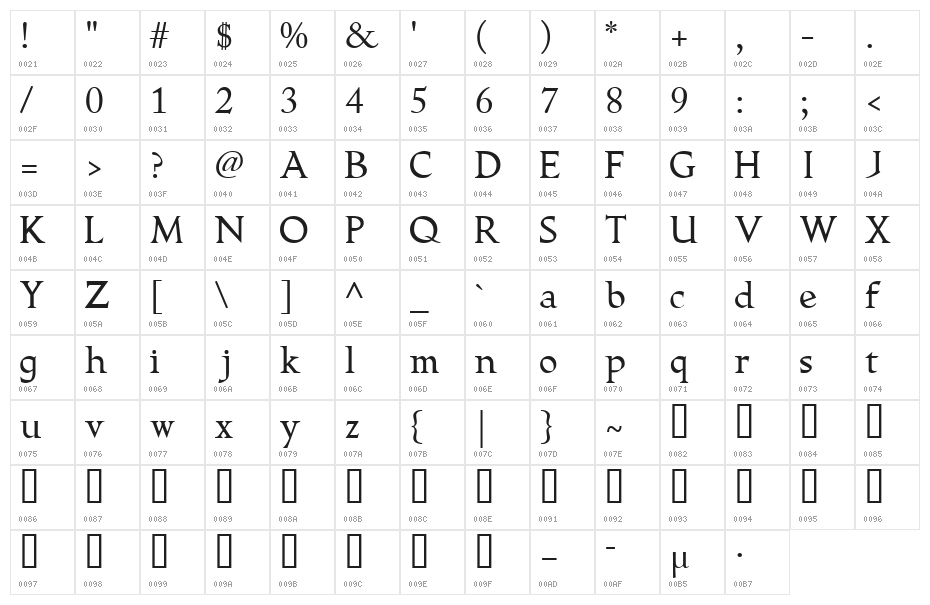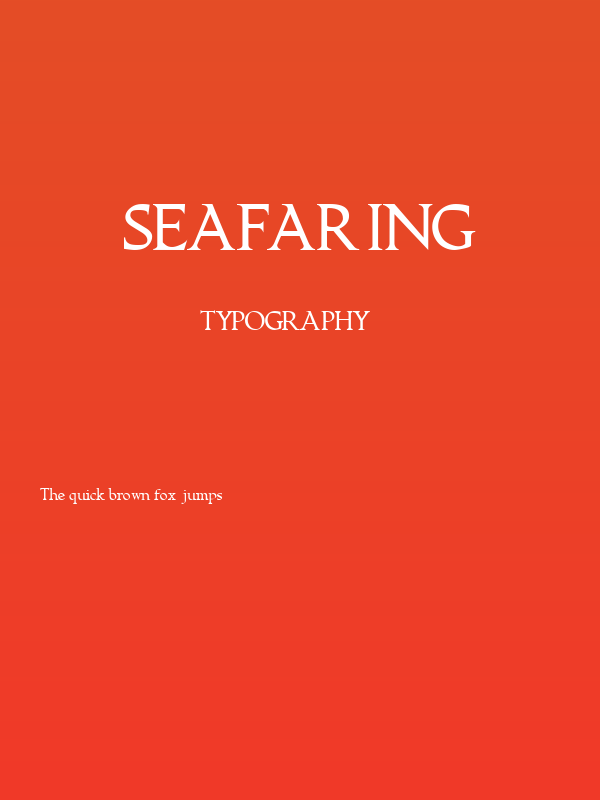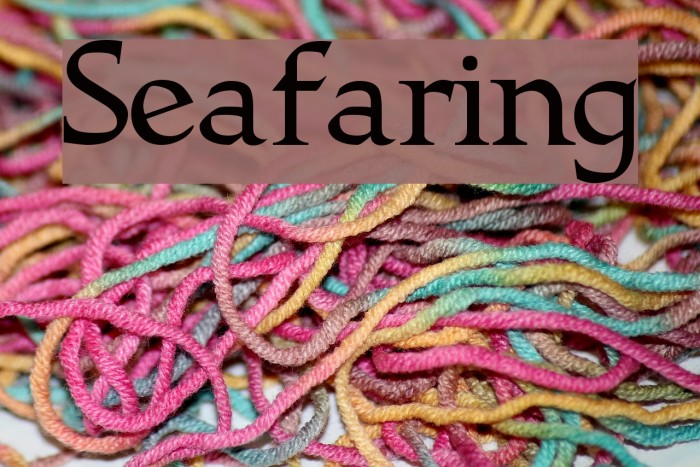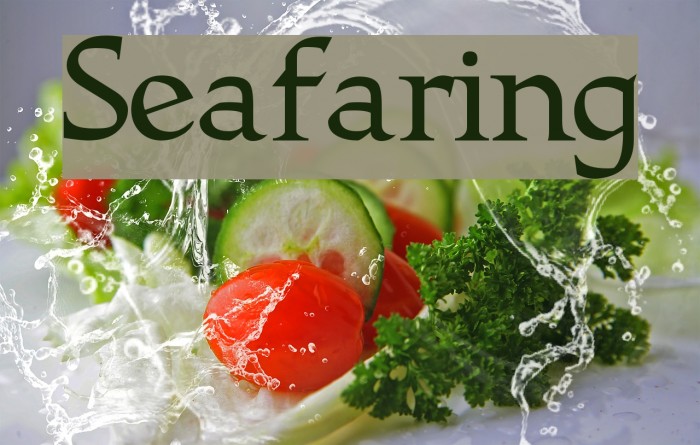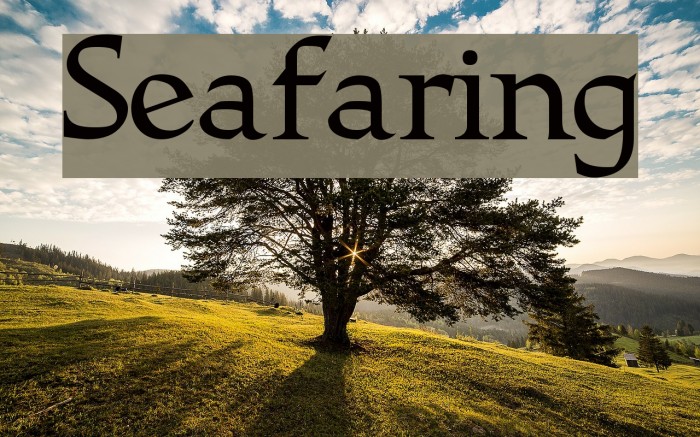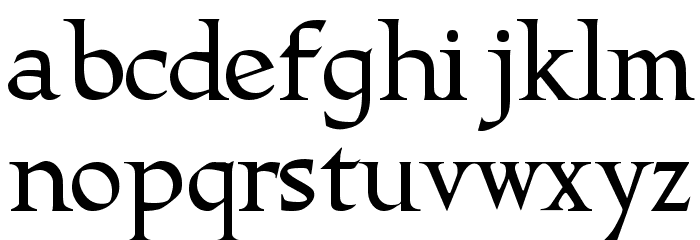
Seafaring Font
Seafaring Description
This font features a classic serif style with elegant, flowing lines and a sophisticated appearance. The serifs are pronounced, adding a touch of formality and tradition to the overall look. The uppercase letters are bold and commanding, while the lowercase letters maintain a graceful balance. The numerals are clear and distinct, making them suitable for both display and text purposes. Special characters are well-integrated, enhancing the font's versatility. The overall design is reminiscent of traditional typography, yet it maintains a modern sensibility, making it suitable for a wide range of applications.
| Proposed Projects | Ideal for editorial design, book covers, formal invitations, and branding projects that require a touch of elegance and tradition. |